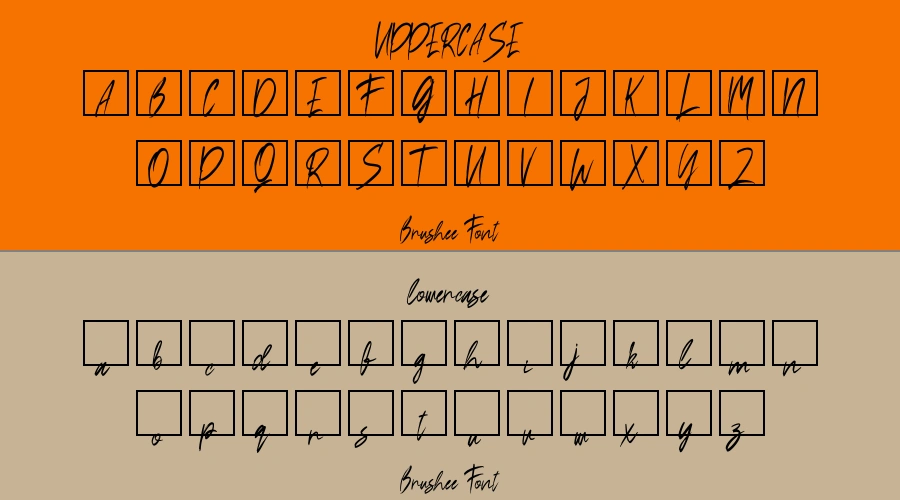
About Brushee Font
Brushee Font stands out for its distinctive combination of sharp edges and textural consistency. Ideal for book design, it provides the consistency and cultural resonance that professional projects demand. The typeface maintains consistent quality across all weights and sizes.
Key features include refined decorative elements and practical tabular figures, enhancing typographic expression. In exhibition titles applications, Brushee Font demonstrates exceptional math typesetting. The beak formation and lifestyle connection contribute to its distinctive character and professional appeal.